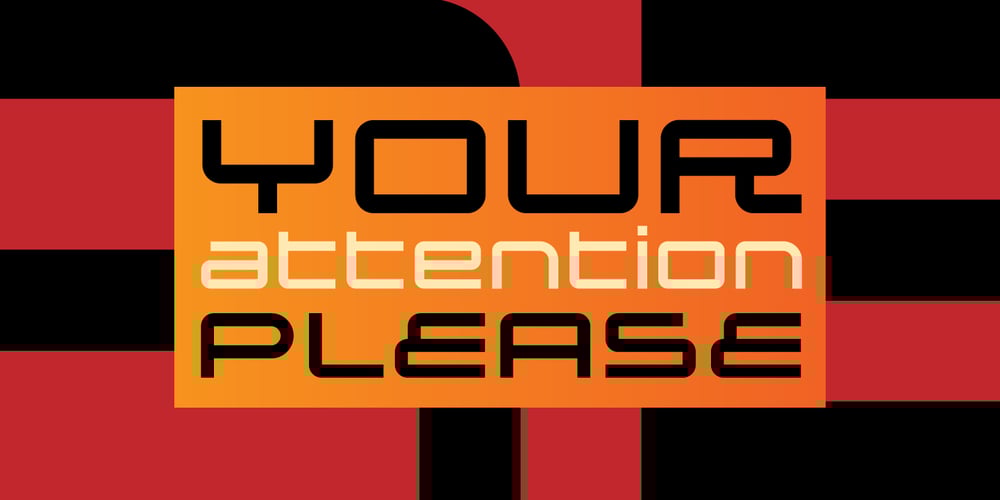
MyCard Font Family was designed by John Moore and published by John Moore Type Foundry. MyCard contains 3 styles and family package options. MyCard is a display sans serif font of modernist spirit, where uppercase letters take the height of the lowercase letters (unicase), where only ascending and descending exceed the x-height. MyCard is ideal for creating logos, packaging, labels, advertising and short titles, in texts produced interesting textures. MyCard comes in three weights Regular, Bold and Black.